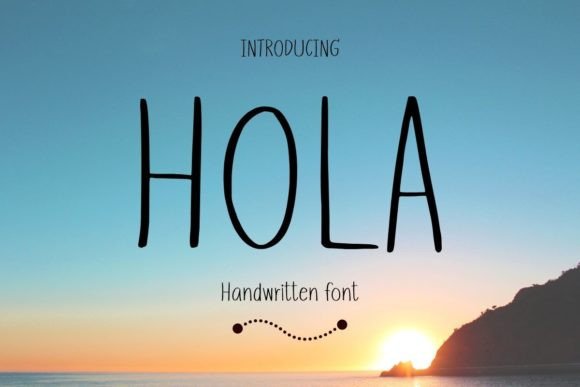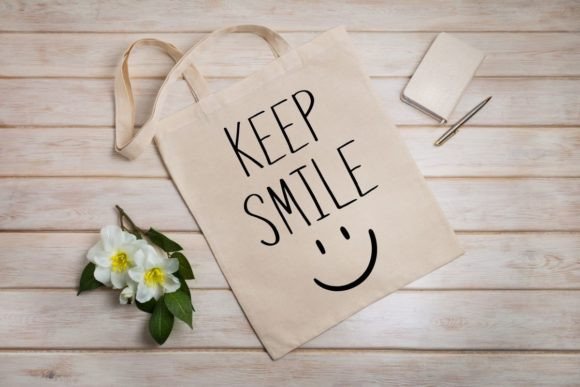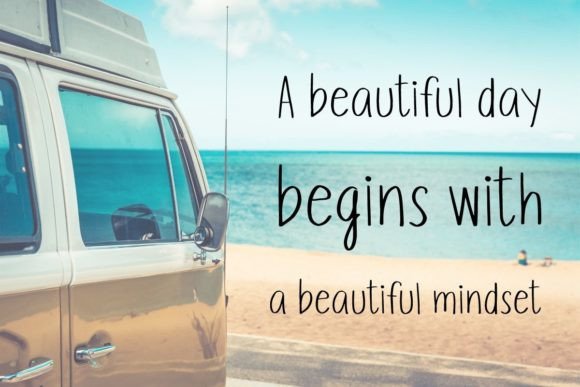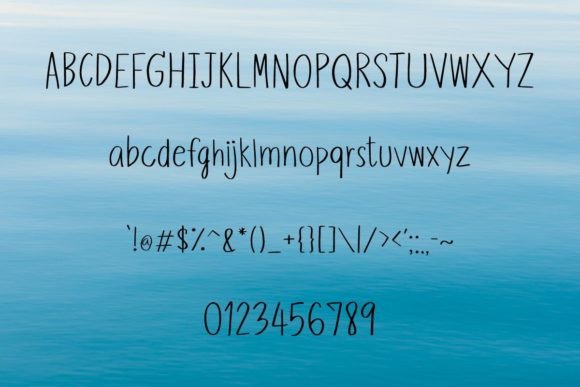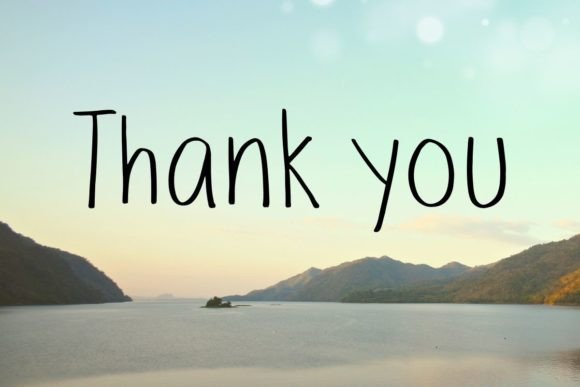
Hola Font
About Hola Font
Introducing “Hola” – Your Tall and Skinny Handwritten Font for Unique Creations!
“Hola” is not just a font; it’s a versatile and stylish handwritten typeface designed to add a unique touch to your creative projects. This tall and skinny font is perfect for a wide range of design applications, from mug designs to pottery, shirts, hats, tote bags, card making, wall art, interior prints, and more.
With “Hola,” you have the perfect font to create eye-catching and distinct designs. Its tall and skinny letterforms lend a sense of elegance and uniqueness to your creations, making them stand out from the crowd.
Imagine using “Hola” to design stunning mug and pottery designs, create stylish and trendy apparel, craft eye-catching tote bags, make personalized cards that leave a lasting impression, produce captivating wall art that beautifies any space, and embark on various other creative projects where a tall and skinny handwritten font is desired.
Whether you’re a professional designer looking to add a touch of elegance to your work or someone with a passion for crafting and DIY projects, “Hola” is your go-to typeface for creating visually appealing and one-of-a-kind designs.